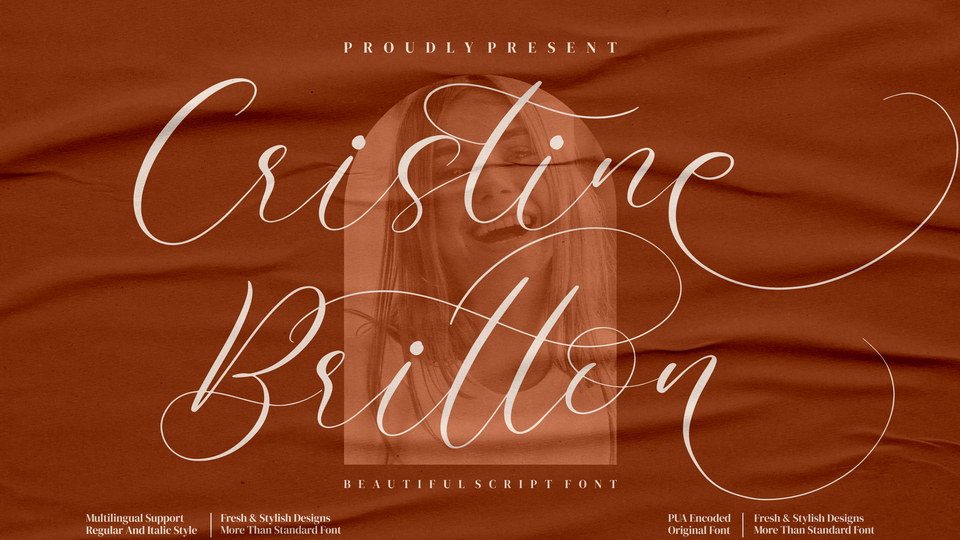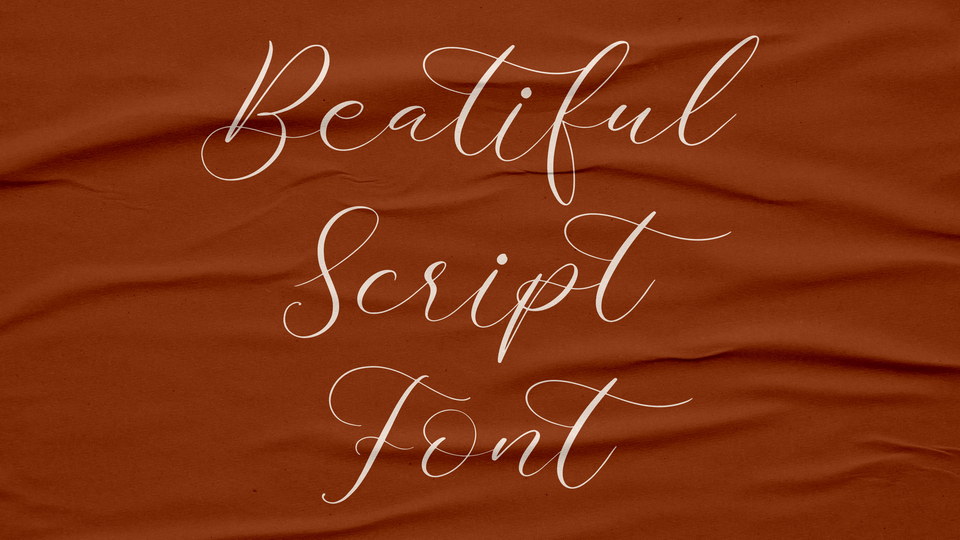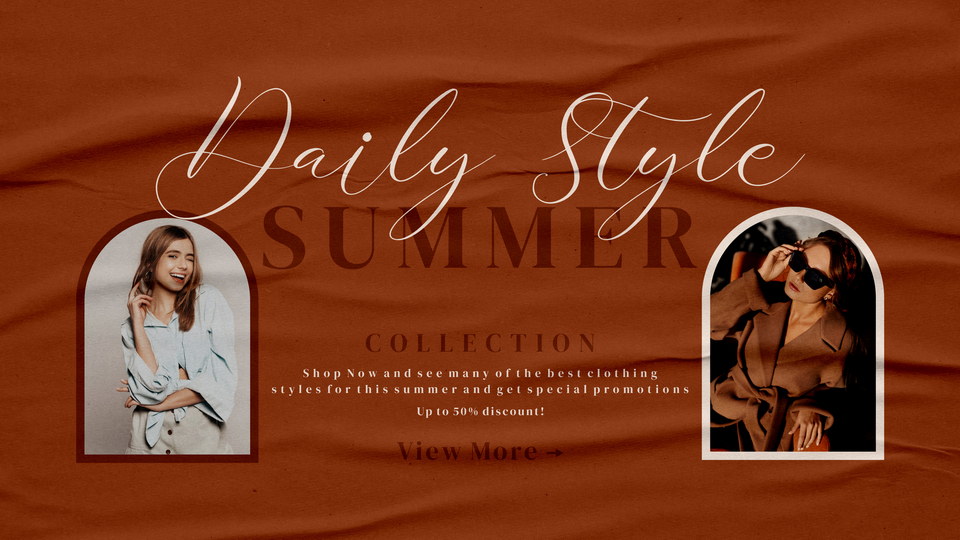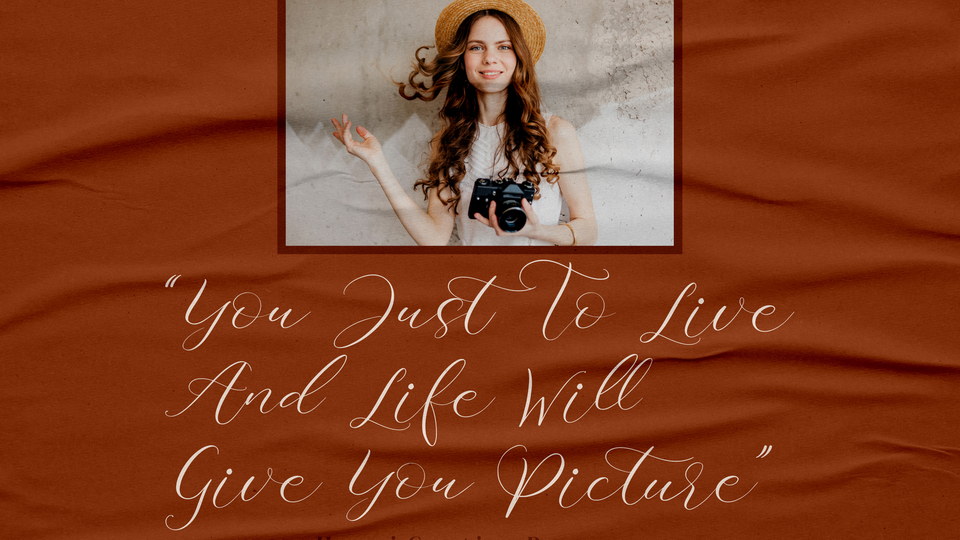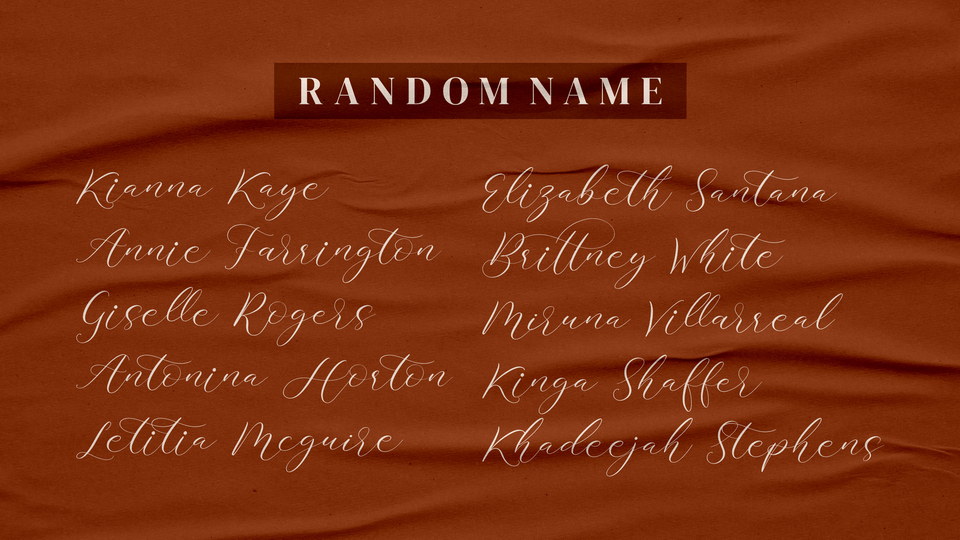
Cristine Britton is a stylish and incredibly elegant script font. It looks stunning on wedding invitations, thank you cards, quotes, greeting cards, logos, business cards and every other design which needs a customized touch.